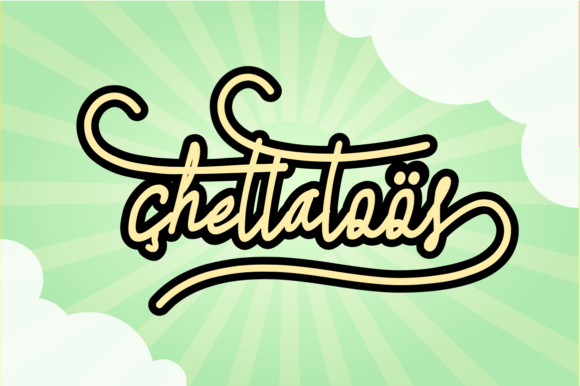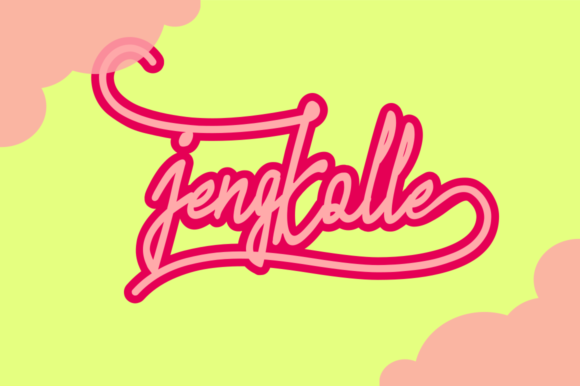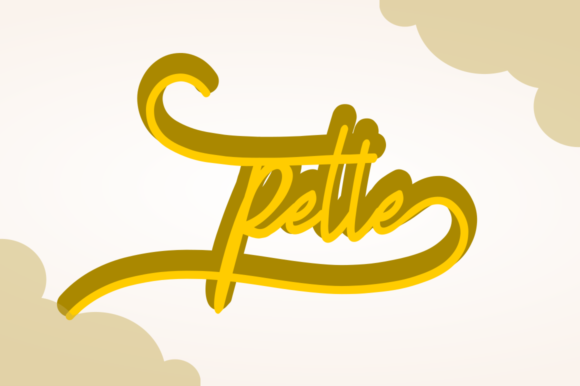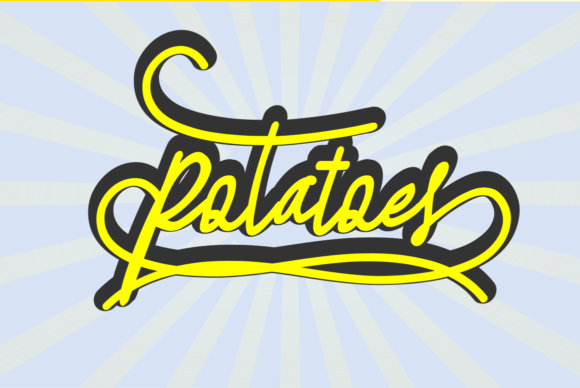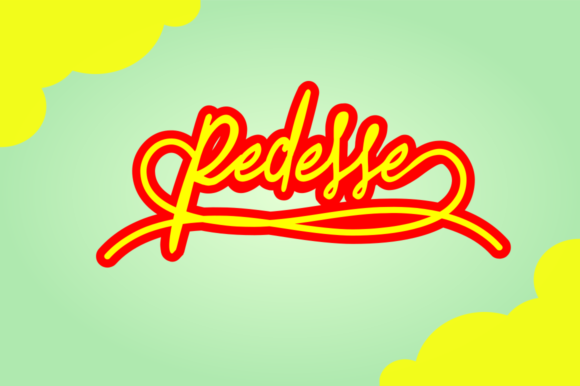
Introduction to Pellittora Font
Remember that moment when you’re brainstorming ideas for your creative project and you can’t find the perfect font to match your vision? You’ve tried countless free downloads, but nothing seems to capture the essence of your design. As a designer, you know how crucial it is to have the right typography to elevate your work.
Enter the Pellittora Font, a unique handwritten script font that’s about to become your new best friend. This high-quality design resource is perfect for branding or customizing your project, adding a personal touch that sets you apart from the crowd. With its transparent background, you can easily layer it over your design elements, creating a seamless visual experience.
Whether you’re working on a commercial project or a personal passion project, the Pellittora Font is a valuable addition to your design toolkit. Its versatility and elegance make it an ideal choice for designers looking to create stunning visuals that leave a lasting impression.
Key Features of Pellittora Font
- High-quality, free download font ideal for creative projects and design resources.
- Unique and elegant design with a transparent background, perfect for overlaying on images or videos.
- Comes in a single weight, with a large x-height and subtle texture, making it suitable for body text and headings.
- Perfect for designers, artists, and creatives looking for a versatile and stylish font for their projects.
Honest Review: Pellittora Font
I recently came across the Pellittora Font, and I was excited to give it a try. As a designer, I’m always on the lookout for high-quality design resources to enhance my creative projects. The Pellittora Font is a free download that’s available to anyone, and I was impressed by its quality and versatility.
What works well is the font’s elegant and modern design, making it perfect for a variety of creative projects. The transparent background allows for seamless integration with any design, giving me more flexibility and creative freedom. Additionally, the font is highly customizable, with a wide range of styles and sizes to choose from.
- ✨ Elegant and modern design
- ✨ Highly customizable
- ✨ Perfect for creative projects
However, there are a few limitations to consider. The font is not ideal for large-scale text, and it may not be suitable for projects that require a lot of bold or dramatic typography. Additionally, the font is not as extensive as some other popular fonts on the market.
Overall, I’m impressed with the Pellittora Font and would definitely recommend it for designers who are looking for a high-quality, free design resource. With its elegant design and transparent background, it’s a great addition to any design arsenal.
Pellittora Font
Using Pellittora Font in Creative Projects
Designing with Pellittora Font
With its transparent background, Pellittora Font is perfect for designing overlays, icons, and graphics. Apply the font to your design elements to add depth and visual interest.
Pellittora Font is commonly used in:
- Print materials
To get the most out of Pellittora Font, experiment with different font sizes, colors, and combinations. Use the font in conjunction with other design elements to create a cohesive and visually appealing design.
Alternatives to Pellittora Font
Aleo is a high-quality, elegant sans-serif font suitable for various creative projects, including branding and editorial design. It’s available for free download and comes with a transparent background. Use Aleo when you need a sophisticated and modern design resource. Aleo is similar to Pellittora Font in its clean and minimalist design, but it has a more refined and polished look.